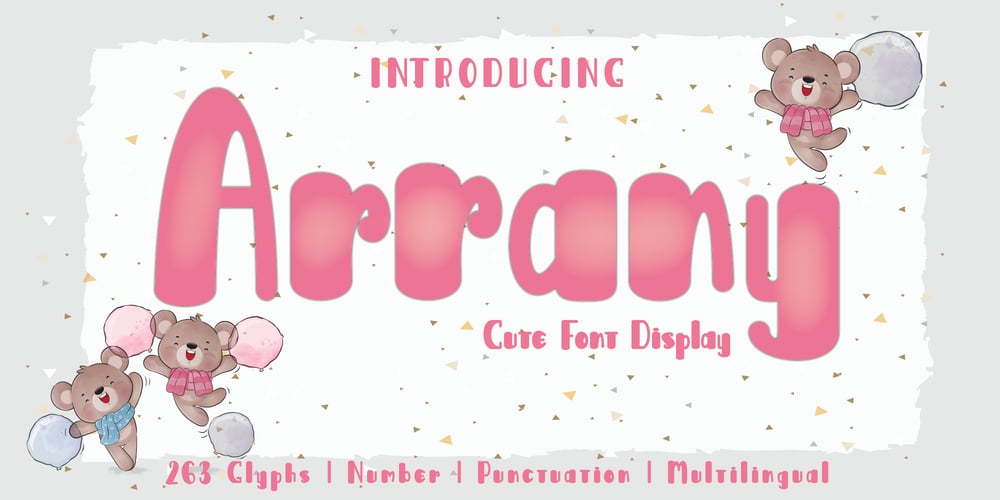
Arrany Font Family was designed by Harjuno Kristanto and published by Arkrist Letter. Arrany contains 1 styles and family package options. Arrany is a unique, sweet, and cute display font. It is very suitable for logo designs, product tags, product names, celebration events, etc. Get inspired by its playful touch and create the most attractive and joyful projects!